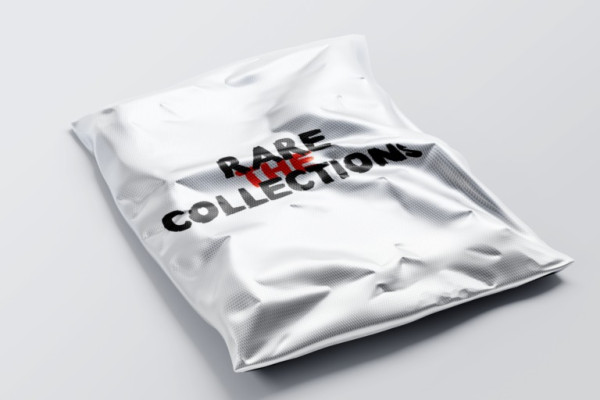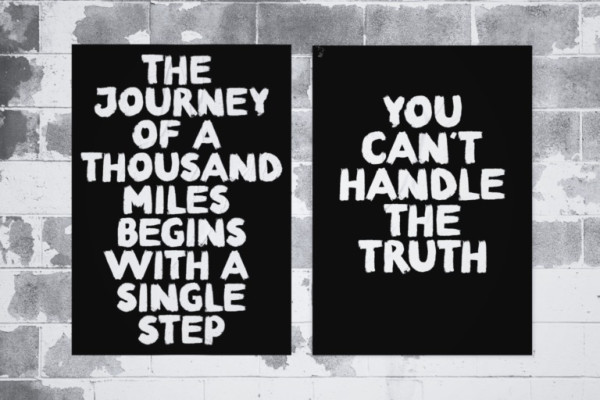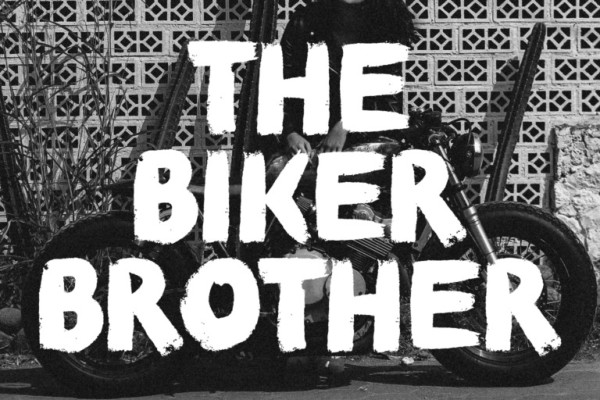
The Biker Brother Font
The Biker Brother Brush Font is a dynamic and bold typeface that exudes a sense of ruggedness and adventure. With its handcrafted brush strokes, this font captures the essence of motorcycle culture and the free-spirited attitude of biker brotherhoods.
Designed with meticulous attention to detail, The Biker Brother Brush Font features rough edges and irregularities, giving it an authentic and rebellious look. Its thick strokes and heavy letterforms evoke a powerful and impactful visual presence, making it ideal for designs that demand attention and convey a strong, edgy vibe.
This font is perfect for various design projects that require a touch of grit and personality. Whether you’re working on posters, apparel designs, logos, or any other creative endeavor, The Biker Brother Brush Font will add a distinct and rebellious character to your work.
With its versatility and expressive nature, The Biker Brother Brush Font allows you to experiment with different typographic styles, emphasizing certain words or phrases, and creating eye-catching headlines. It embraces the rawness and freedom of the open road, making it a fantastic choice for projects that celebrate individuality and the thrill of adventure.
Let The Biker Brother Brush Font take your designs on an exhilarating ride, infusing them with energy, attitude, and the camaraderie of biker brotherhoods.